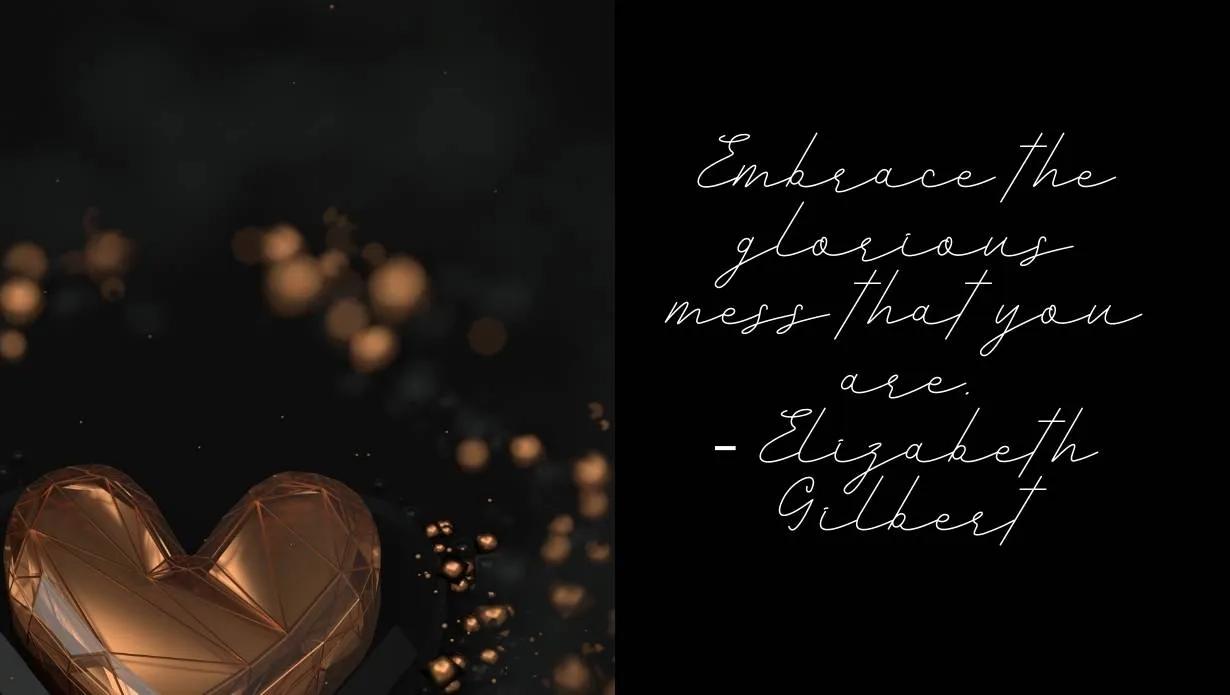
It is a type of font that is generally used on Valentine’s Day to express affection.
It is not just one particular type of font, but rather it refers to the different typefaces available for various programs on your computer. A similar font of this typeface is Tangled Font.
| Name | Romantic Font |
| Designer | Haksen Studio |